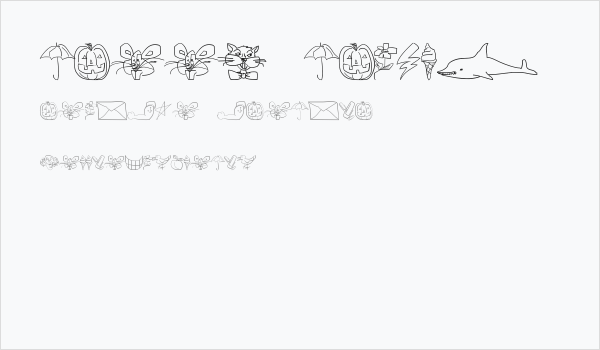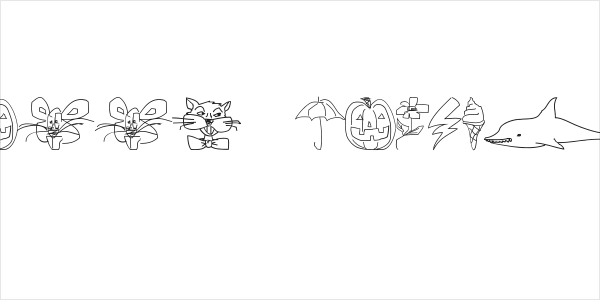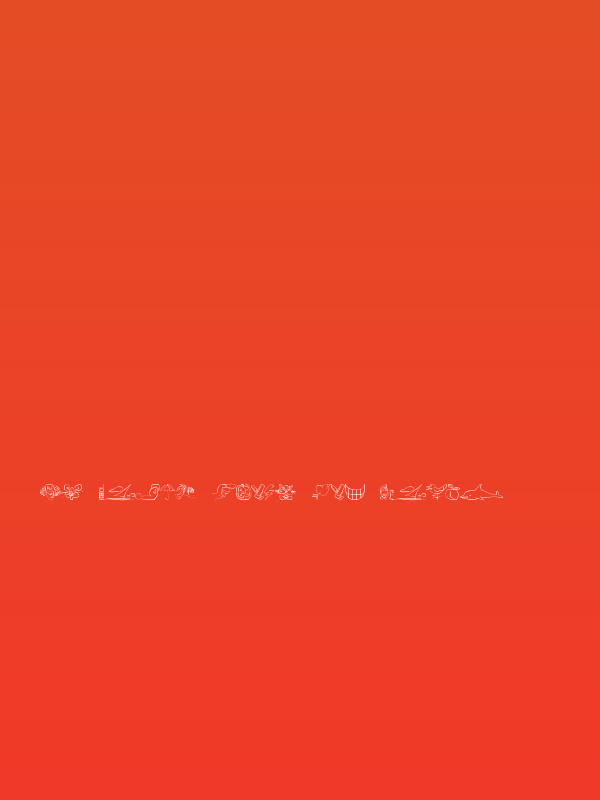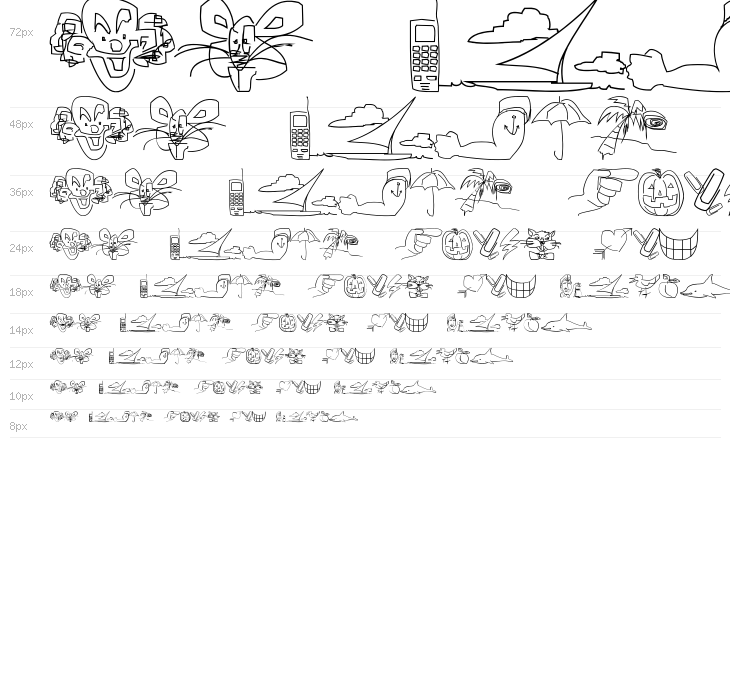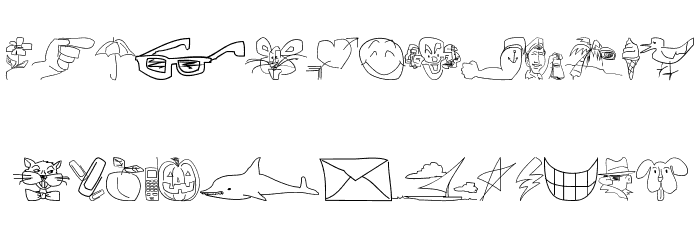
Screen Scrawls JL Font
Screen Scrawls JL Description
This is a decorative and playful dingbat font featuring a variety of whimsical illustrations instead of traditional alphanumeric characters. Each character is represented by a unique drawing, such as animals, objects, and symbols, providing a creative and artistic touch. The style is hand-drawn, with a casual and informal appearance, making it suitable for projects that require a fun and lighthearted aesthetic. The font's illustrations are detailed and varied, offering a wide range of visual elements that can be used to enhance creative designs.
| Use Case | Logos, Decorative elements, Creative projects |
| Proposed Projects | Ideal for creative projects like greeting cards, children's books, playful posters, or any design requiring a fun and artistic touch. |